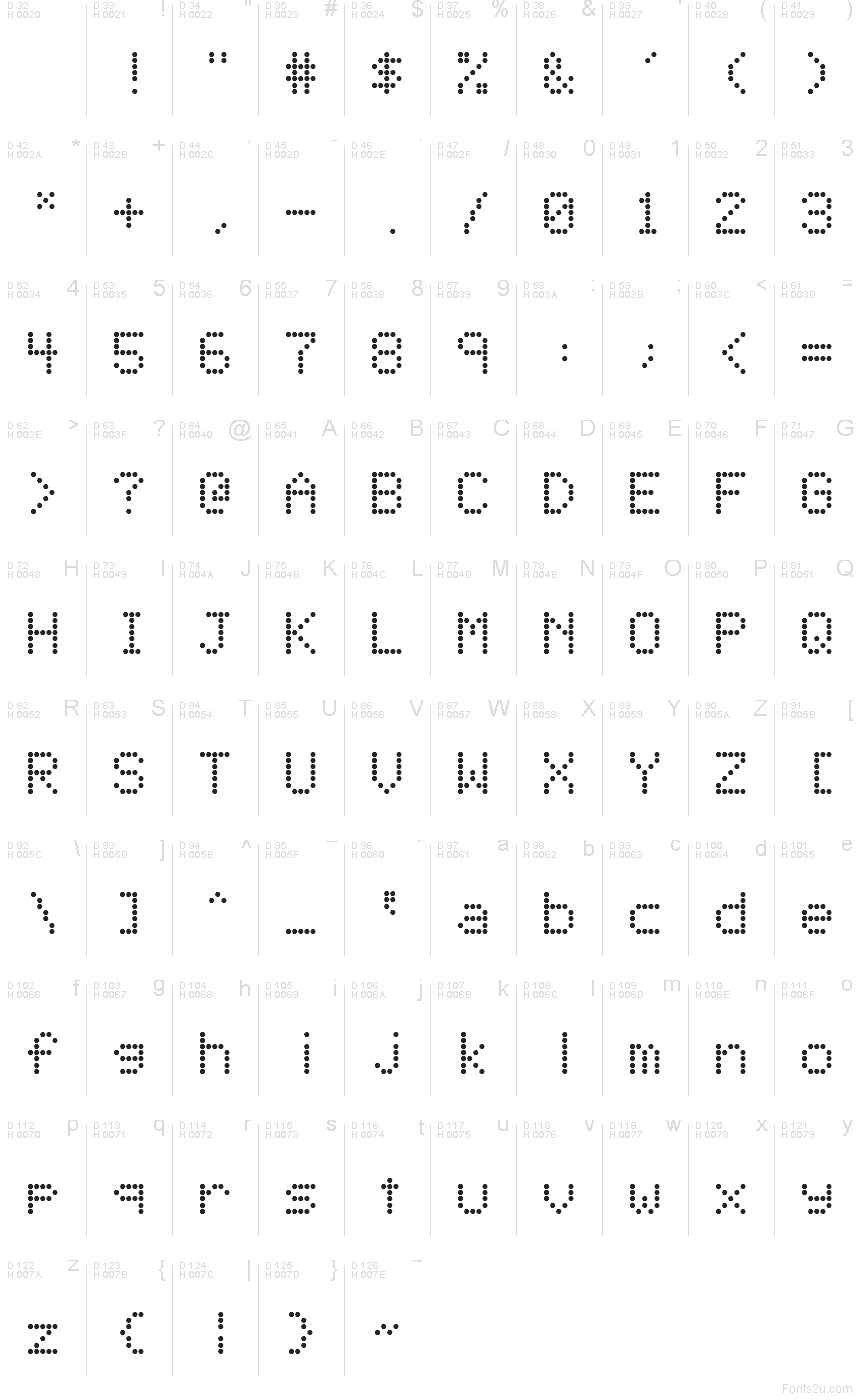
TC Lightz 2
TC Lightz 2 font by Type City Font Co is a free digital display typeface that captures the glow of classic marquee bulbs and dot-matrix signs. Each letter is formed from tight clusters of circular dots, giving text a punchy, LED-board texture that feels both retro and techy. The rhythm of the dots stays steady across characters, so even playful layouts still read quickly at a glance.
Using TC Lightz 2 in the TC Lightz family shines on event posters, nightlife flyers, concert graphics, game interfaces, signage mockups, and bold social media promos. This free font really comes alive at larger sizes, where the dotted structure becomes a graphic pattern in its own right. Pair it with a clean geometric sans for body text and you’ve got an instant, modern signboard aesthetic.